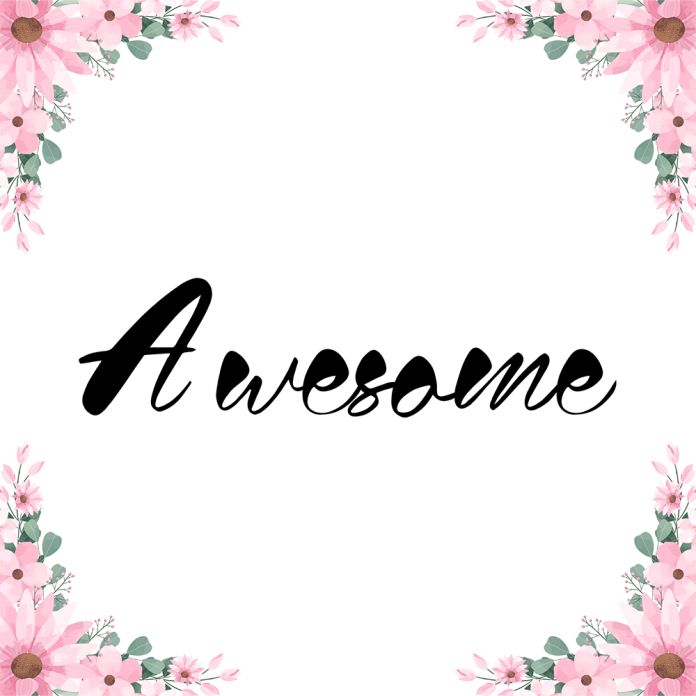
Awesome Script is a new modern script font with an irregular baseline and a trendy and feminine style. Awesome looks lovely on wedding invitations, thank you cards, quotes, greeting cards, logos, business cards and more.